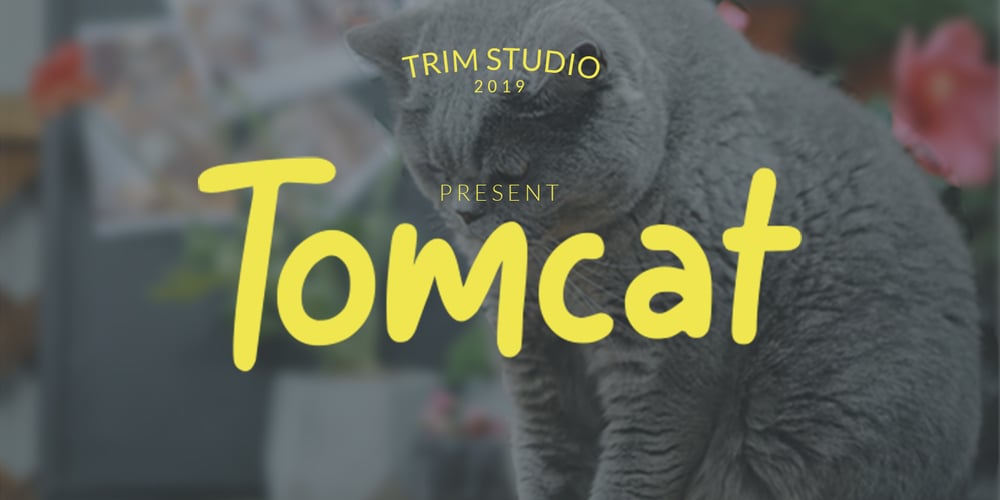
Tomcat Font Family was designed by Deri Kurnia and published by Trim Studio. Tomcat contains 2 styles and family package options. The Tomcat Bold is a playful display font. It comes in a regular and bold style which will give your design a fun touch.